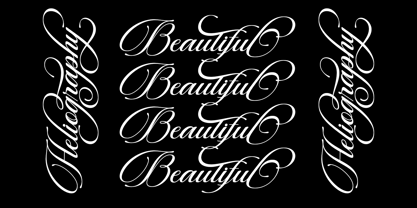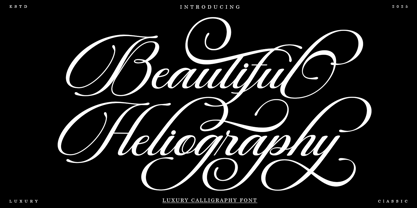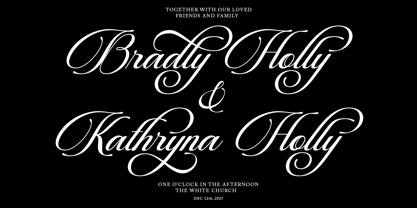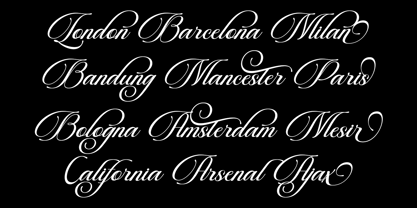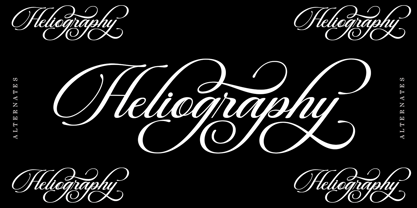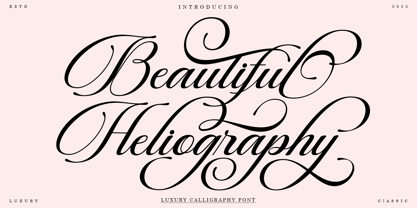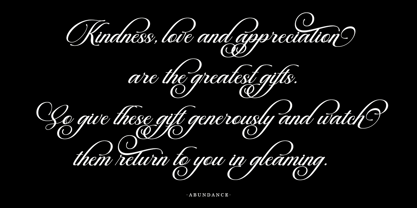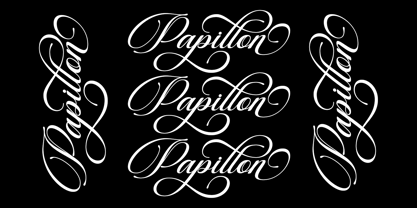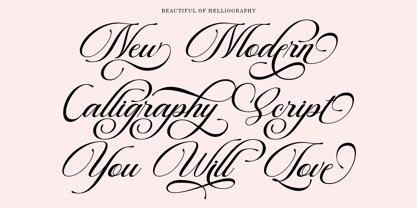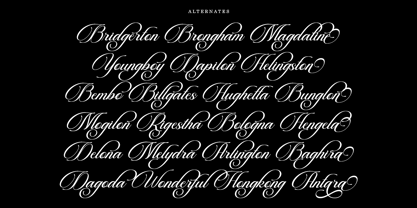
Beautiful Heliography Script
by Hrz Studio
The Beautiful Heliography Script Font Family was designed by Has Rizal and published by Hrz Studio. Beautiful Heliography Script contains 1 styles. More about this family
Beautiful Heliography Script is a modern classic style script font inspired by classic handwriting in books. This font comes with style sets, Contextual Alternatives, ligatures and also multi-language support which adds aesthetics that make your work even more attractive.
Beautiful Heliography Script is perfect for your creative projects such as Logotype, printed quotes, invitations, cards, product packaging, headers, Letterheads, Apparel, Web design, Magazines, Books, etc.
Total Glyphs: 380 Uppercase, Lowercase, Punctuation, and Contextual Alternative Binding Symbols.